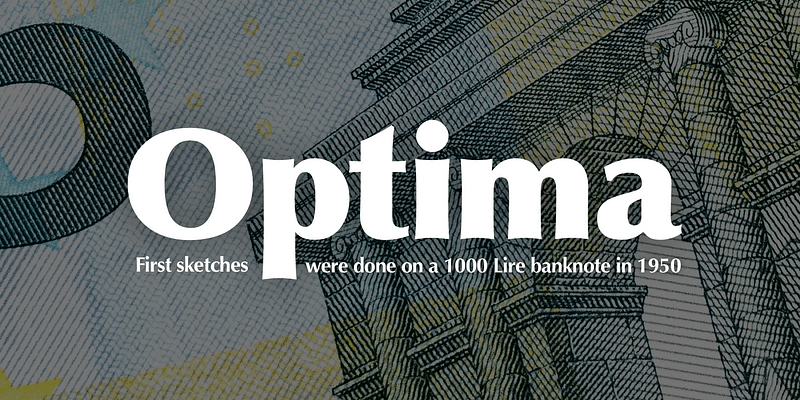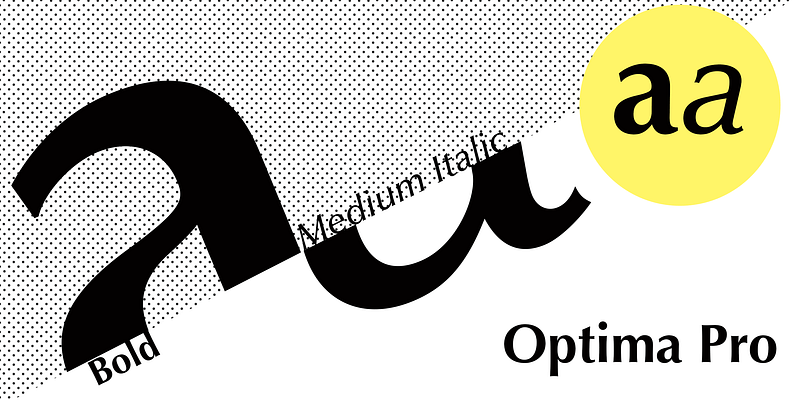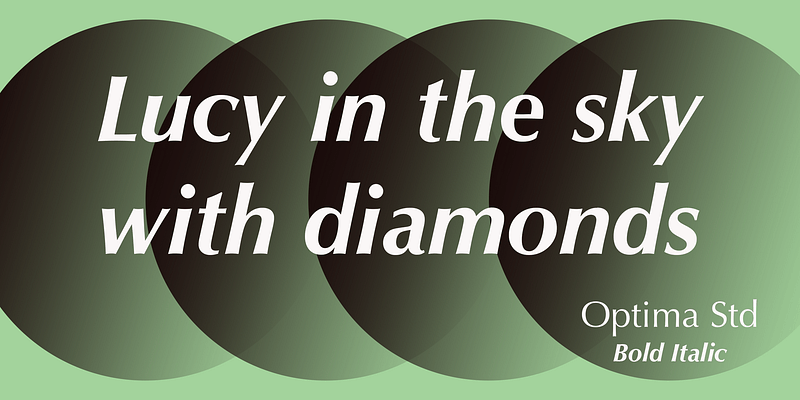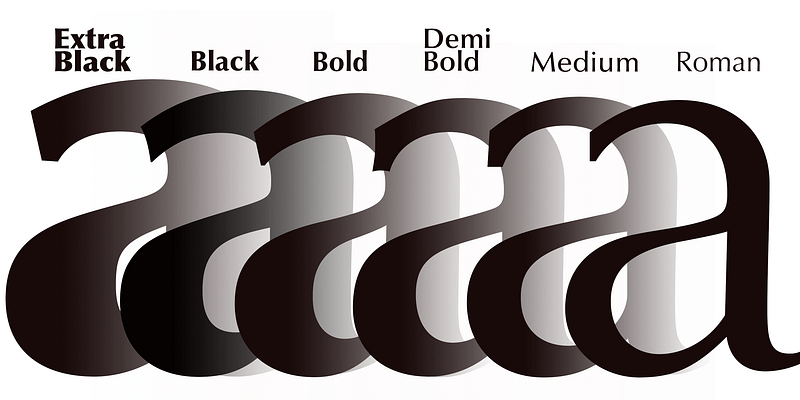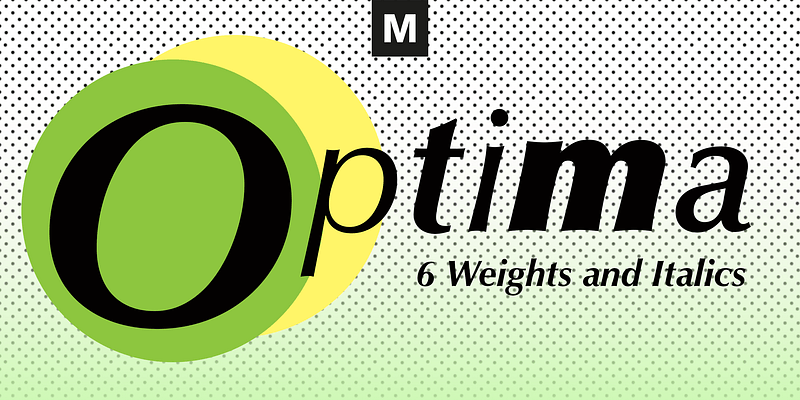
Many typefaces are distinctive or attractive at the expense of legibility and versatility. Not so the Optima® family. Simultaneously standing out and fitting in, there are few projects or imaging environments outside of its range.Although Optima is almost always grouped with sans serif typefaces, it should be considered a serifless roman. True to its Roman heritage, Optima has wide, full-bodied characters – especially in the capitals. Only the E, F and L deviate with narrow forms. Consistent with other Zapf designs, the cap S in Optima appears slightly top-heavy with a slight tilt to the right. The M is splayed, and the N, like a serif design, has light vertical strokes. The lowercase a and g in Optima are high-legibility two-storied designs.Optima can be set within a wide choice of line spacing values – from very tight to very open. In fact, there are few limits to the amount of white space that can be added between lines of text. Optima also benefits from a wide range of letter spacing capability. It can be set quite tight, or even slightly open – especially the capitals. If there are any guidelines, Optima should be set more open than tight. It’s not that readability is affected that much when Optima is set on the snug side; it’s just that the unhurried elegance and light gray typographic color created by the face are disrupted when letters are set too tight.Optima is also about as gregarious as a typeface can be. It mixes well with virtually any serif design and a surprisingly large number of sans serif faces.The Optima family is available in six weights, from roman to extra black, each with an italic counterpart. In addition, the family is available as a suite of OpenType® Pro fonts, providing for the automatic insertion of small caps, ligatures and alternate characters, in addition to offering an extended character set supporting most Central European and many Eastern European languages.When you’re ready to find its perfect pairing, browse these fantastic matches: Monotype Century Old Style™, Dante®, Frutiger® Serif, Joanna® Nova, Malabar™ and Soho®.